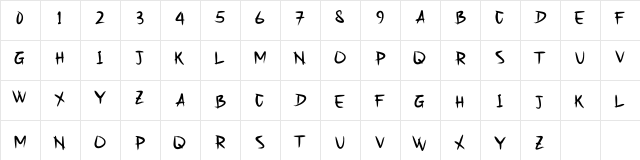
Nazumi Font Regular
Design Context for Nazumi Font Typeface
Nazumi Font is a composed and adaptable typeface that performs quietly and consistently across a wide range of design contexts.